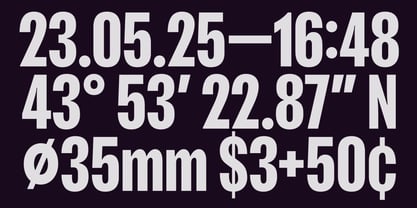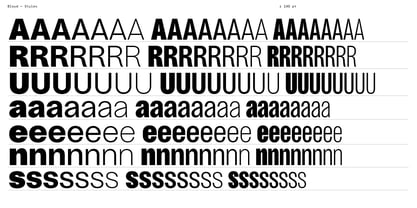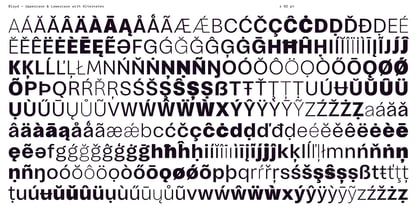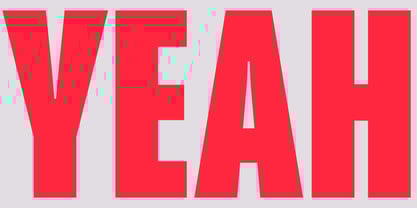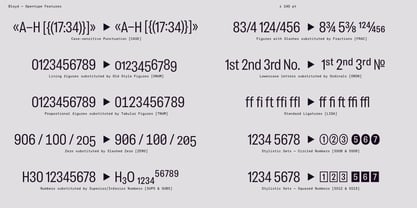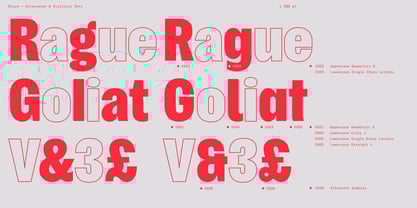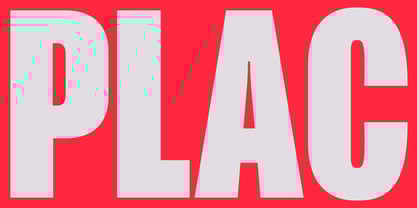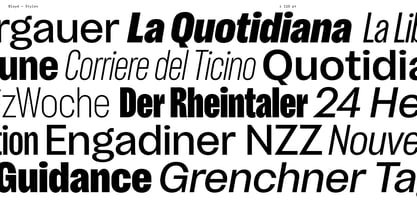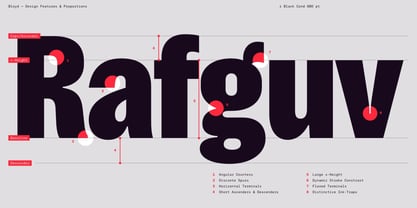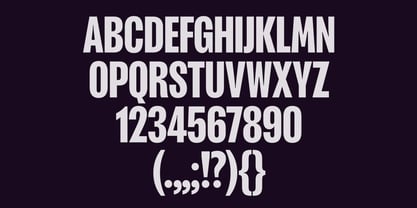
Bloyd Variable
by Blaze Type
The Bloyd Variable Font Family was designed by Alex Rütten, Olivia Wood and published by Blaze Type. Bloyd Variable contains 1 styles. More about this family
Bloyd is a catchy grotesque font family with a distinct appearance, designed for use in headlines and body text. The design takes its cue from Monotypes poster typeface »Placard«, published in 1937. Like the origin design, Bloyd plays on a blend of poster typeface characteristics and geometric influences of the era, yet is infused with the manual spirit of hand-carved letters.
Letters have tapered strokes with dynamic curves, terminals subtly flare out and it has a lot of unexpected details, giving it a relaxed and quirky character. Squared inner counters provide a fine contrast to warmer outer curves, supported by a discrete play in stroke widths. With a large x-height and short ascenders & descenders, Bloyd’s narrow subfamilies can be packed tightly to produce forceful headlines. The normal width styles offers generous proportions, creating good readability for longer texts. The design balances on the fine line between ratio and emotion – it appears loud and emphatic in the heavy weights and compressed widths, and more calm and rational in the light and normal styes.
Bloyd is available in Roman and Italic, with three widths from Normal to Compressed and a range of eight weights from Extra-Light to Black, each with a corresponding italic at a moderately steep 10° angle. The typeface spans 876 glyphs and 48 styles, and is offered as a VAR Font. Each font includes a large multilingual character set, accompanied by symbols, a set of arrows, and an array of Open Type features and stylistic alternates offering a lot of playful variety.
Designers: Alex Rütten, Olivia Wood
Foundry: Blaze Type